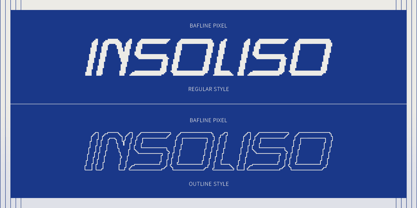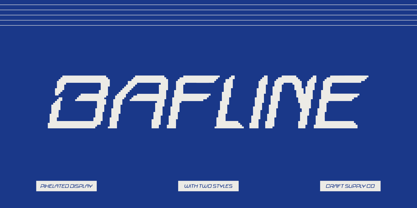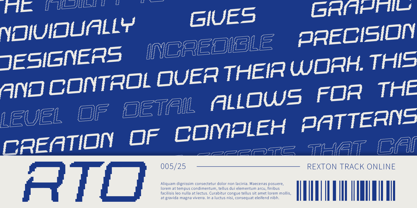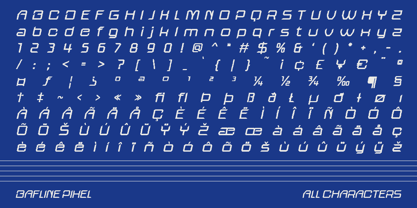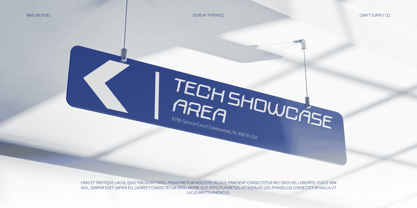
Bafline Pixel
by Craft Supply Co
The Bafline Pixel Font Family was designed by Trio Nazzar Saputra, Wahyu Hadi Yuana and published by Craft Supply Co. Bafline Pixel contains 2 styles and family package options. More about this family
Bafline Pixel – Futuristic Pixelated Sans-Serif Font
Futuristic and Tech-Inspired Design
Bafline Pixel is a modern display sans serif font that seamlessly blends sharp, geometric lines with a pixelated effect, evoking a sense of cutting-edge technology. Its design, inspired by futuristic and digital aesthetics, creates a dynamic and sleek look that is perfect for projects looking to convey innovation and modernity. Ideal for tech branding, video games, and digital media, this font brings a bold and forward-thinking appearance to any design.
Pixelated Digital Aesthetic
The pixelated effect adds a retro yet futuristic quality, reminiscent of early video games and digital technology. The sharp, clean lines of the letters contrast beautifully with the pixelation, creating a unique and captivating visual that stands out in both large headers and smaller text applications. Whether used for websites, app interfaces, or promotional graphics, Bafline Pixel delivers a striking and contemporary look.
Perfect for Tech and Digital Projects
Bafline Pixel is designed for projects that demand a digital and high-tech appearance. It is ideal for technology brands, video game designs, sci-fi events, or any creative venture aiming for a futuristic and innovative aesthetic. Its unique blend of sharp geometric shapes and digital flair ensures it will make a bold statement in any context.
Designers: Trio Nazzar Saputra, Wahyu Hadi Yuana
Foundry: Craft Supply Co